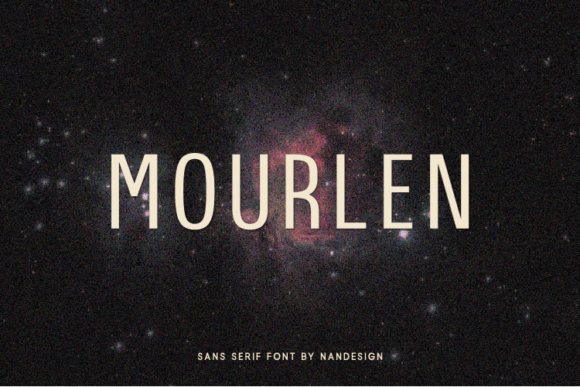
**Flourish Your Designs with Mourlen: The Epitome of Sans Serif Elegance**
In a world where aesthetics reign supreme, presenting Mourlen, the sans serif font poised to enchant your designs with its towering heights and impeccable lines. This font is not merely a collection of letters; it's an artistic masterpiece, meticulously crafted to elevate your projects to new heights of elegance.
**Harmonizing with Every Creative Vision**
Mourlen is a versatile chameleon, effortlessly adapting to any design landscape, from bold headings that command attention to delicate invitations that whisper a touch of charm. Whether you're crafting stunning logos that exude professionalism or creating breathtaking posters that ignite the imagination, Mourlen is your trusted companion, bringing your creative visions to life with grace and finesse.
**Effortless Beauty for Every Occasion**
Whether you're a seasoned designer seeking a font of unparalleled sophistication or a budding artist exploring the world of typography, Mourlen is your perfect partner. Its tall, slender characters exude an air of timelessness, while its clean lines ensure effortless readability, making it the ideal choice for a wide range of projects.
**Ignite Your Imagination with Mourlen**
Mourlen is more than just a font; it's an open invitation to unleash your creativity. With its inherent versatility, Mourlen empowers you to craft designs that reflect your unique style and artistic flair. Let your imagination soar as you explore the endless possibilities that await, knowing that Mourlen will faithfully translate your vision into a tangible masterpiece.